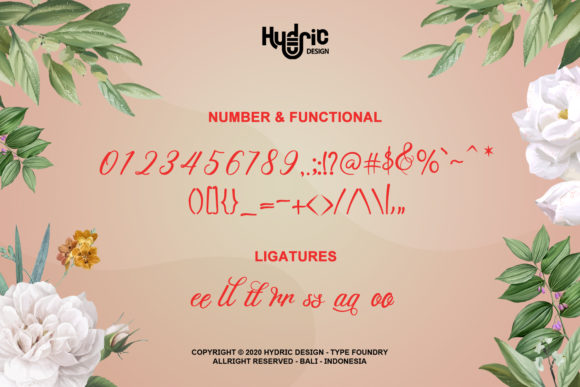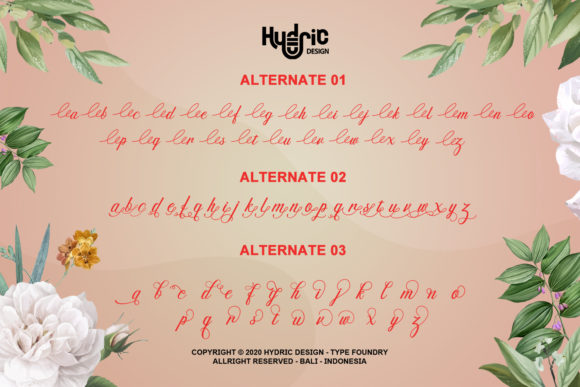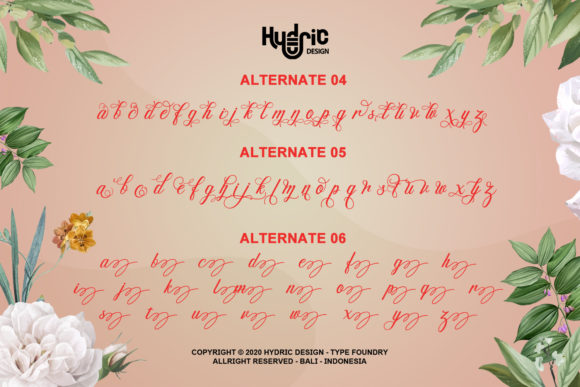
The Perfect Brushstroke: Unlocking the Magic of the Dellancy Font
As designers, we’ve all been there – staring at a blank canvas, desperately searching for the perfect font to bring our vision to life. It’s a moment of pure creative agony, until suddenly, inspiration strikes. And that’s exactly what happened when I discovered the Dellancy Font. This elegant and flowing handwritten font is a masterclass in romance and sophistication, making it the perfect choice for logos, branding, wedding invitations, and any design that needs a touch of whimsy.
With its beautiful brushstrokes and delicate flair, the Dellancy Font is a valuable addition to any designer’s toolkit. Whether you’re working on a high-end branding project or a sentimental wedding invitation, this font is sure to add a level of sophistication and elegance that will leave your clients and audience in awe.
- Unique Characteristics: Dellancy Font features a unique blend of modern and vintage elements, with a mix of geometric and organic shapes, making it perfect for creative and artistic designs
Dellancy Font Review
I’ve had the chance to work with the Dellancy Font, and overall, it’s a decent addition to any designer’s toolkit. Here’s what I think.
- Unique, modern aesthetic that’s perfect for trendy designs
- Good legibility, even at smaller font sizes
- Wide range of language support, making it suitable for global projects
- Comes in a variety of weights and styles, offering plenty of customization options
- May not be suitable for formal or traditional designs
- Lack of character set customization, which can be limiting for specific projects
- Not ideal for small text or body copy, due to its modern and bold style
The Dellancy Font is a solid choice for designers looking to add a touch of modernity to their projects. While it may not be perfect for every design, it’s a great option for those who want to create eye-catching, trendy designs. With its unique aesthetic and wide range of customization options, I’d definitely consider using it again in the future.
Getting the Most Out of Dellancy Font
For optimal results, use the Dellancy font in conjunction with bold or italic styles to create visual hierarchy and emphasis. Experiment with different font sizes and colors to enhance readability and visual appeal.
The Dellancy font is ideal for creative projects, such as:
- Infographics and data visualizations.
- Posters and flyers.
- Business cards and branding materials.
Alternatives to Dellancy Font
Playfair Display is a luxurious and elegant font ideal for creating a high-end look. It features intricate flourishes and ornate details that add a touch of sophistication to any design. It’s perfect for use in titles, headings, and other high-impact areas where you want to make a statement. Compared to Dellancy Font, Playfair Display is more formal and luxurious, making it suitable for high-end branding, luxury goods, and upscale advertising.
Great Vibes is a modern and elegant font that exudes a sense of sophistication and refinement. It’s perfect for use in designs that require a touch of elegance and sophistication, such as luxury branding, high-end advertising, and upscale packaging. Compared to Dellancy Font, Great Vibes is more refined and sophisticated, making it suitable for designs that require a high level of elegance and sophistication.
Amarante
Amarante is a beautiful and elegant font that features a mix of modern and vintage elements. It’s perfect for use in designs that require a touch of whimsy and elegance, such as fashion branding, upscale packaging, and high-end advertising. Compared to Dellancy Font, Amarante is more whimsical and elegant, making it suitable for designs that require a touch of personality and sophistication.
Merriweather is a classic and elegant font that features a mix of modern and traditional elements. It’s perfect for use in designs that require a touch of sophistication and elegance, such as luxury branding, high-end advertising, and upscale packaging. Compared to Dellancy Font, Merriweather is more classic and elegant, making it suitable for designs that require a high level of sophistication and refinement.